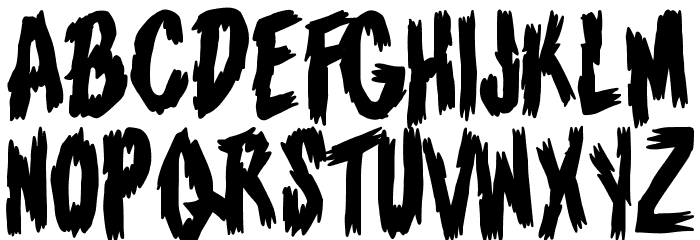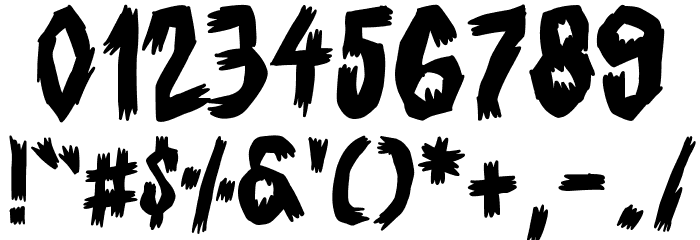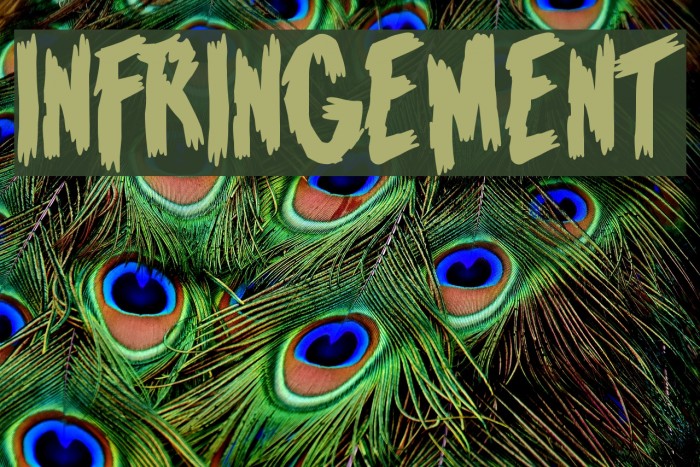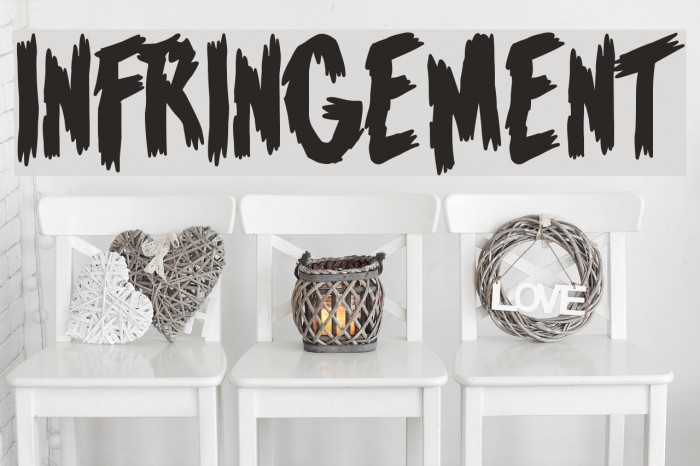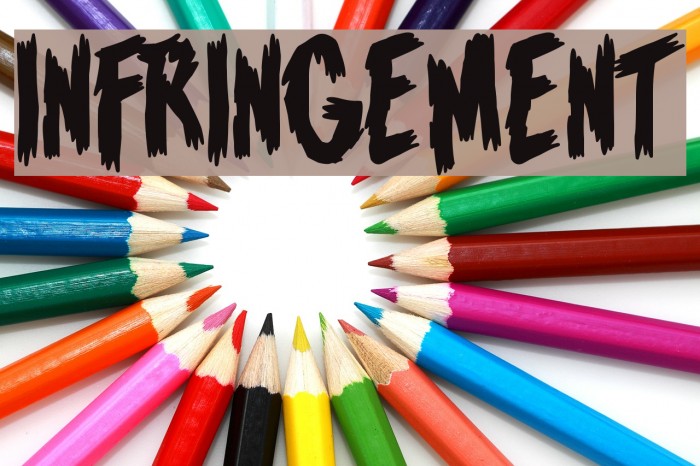
Infringement Font
This font features a bold, jagged style with an aggressive and dynamic appearance. The characters are heavily stylized with rough, uneven edges that give a sense of motion and energy. The uppercase and lowercase letters maintain a consistent design, emphasizing the font's unique, edgy look. Numbers and special characters follow the same aesthetic, ensuring a cohesive visual experience. This font is ideal for projects that require a strong, impactful presence, such as posters, album covers, or branding for edgy products.
A bold, jagged font with an aggressive, dynamic style.
- Proposed Projects: Perfect for posters, album covers, branding for edgy products, and any project needing a strong visual impact.